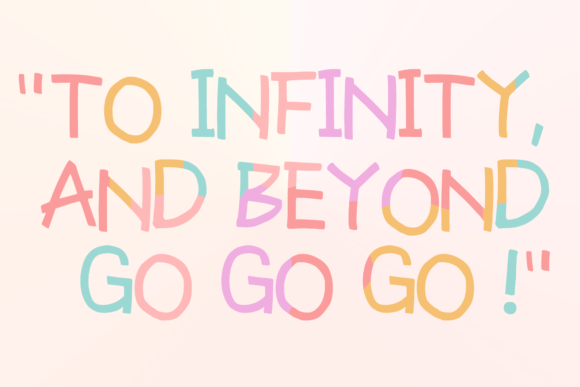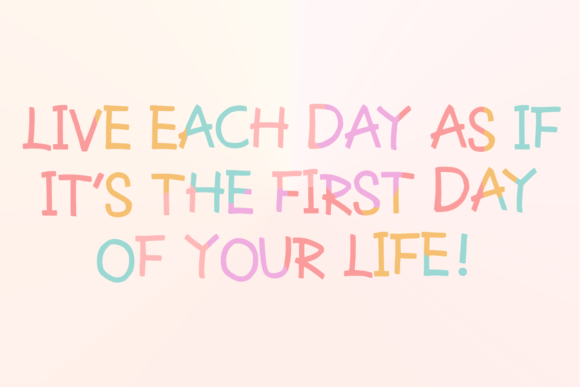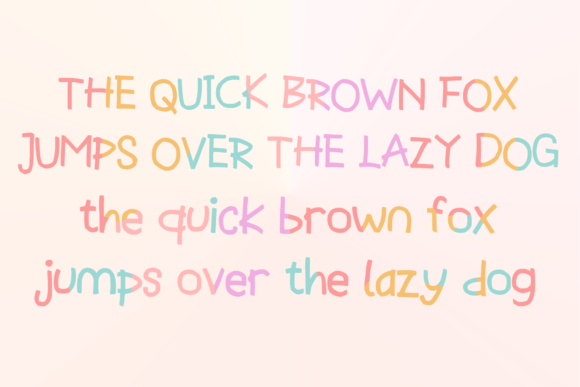
Introduction to Rainbow Mama Font
Rainbow Mama is a lovely and fun display font, you can use it on your daily activities and big events such as Mother’s Day, Christmas, Easter, and else.
Use this font for a multitude of design ideas such as mugs, t-shirt designs, eye-catching logo designs, greeting cards, and many more This font will add a pretty touch to your designs.